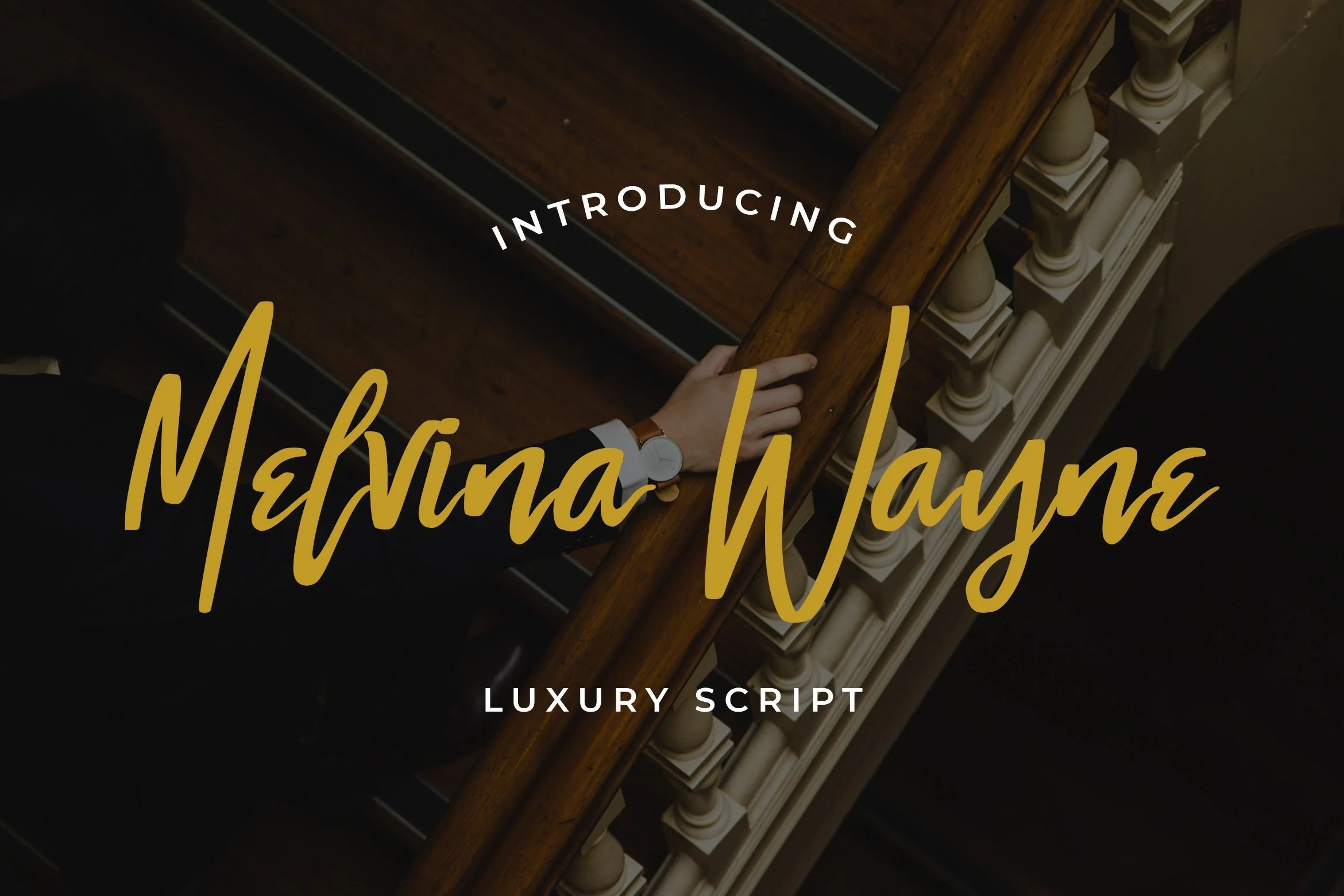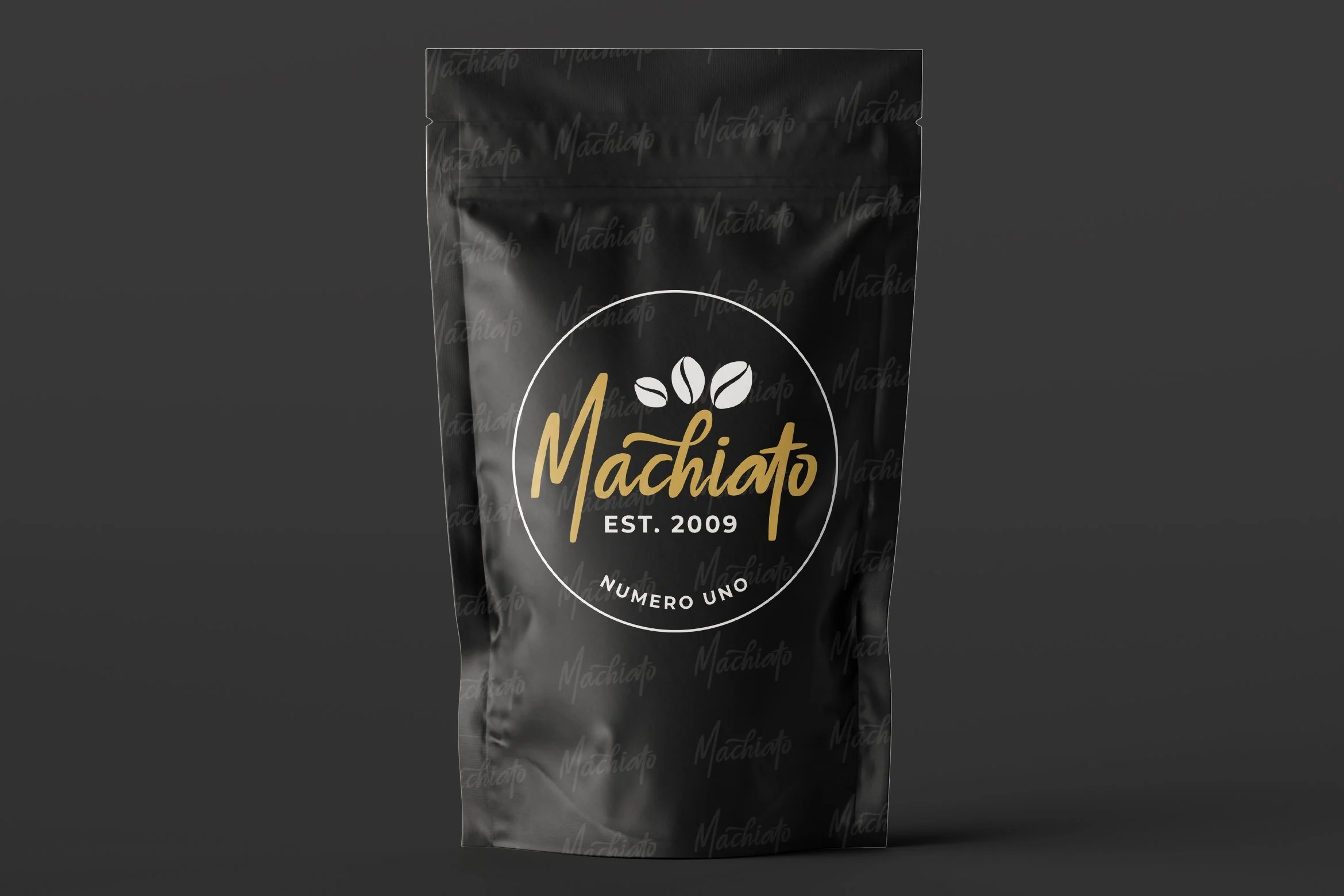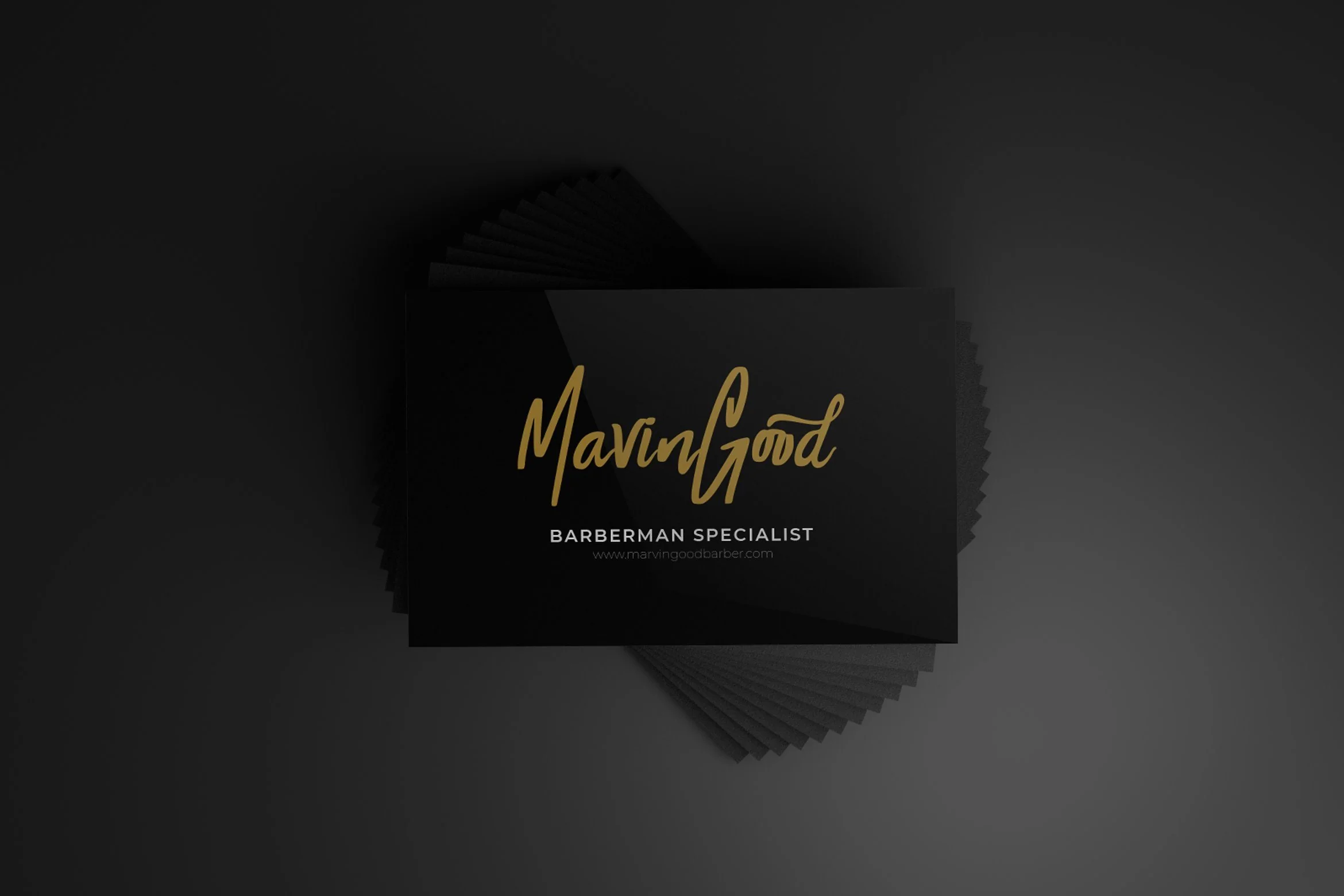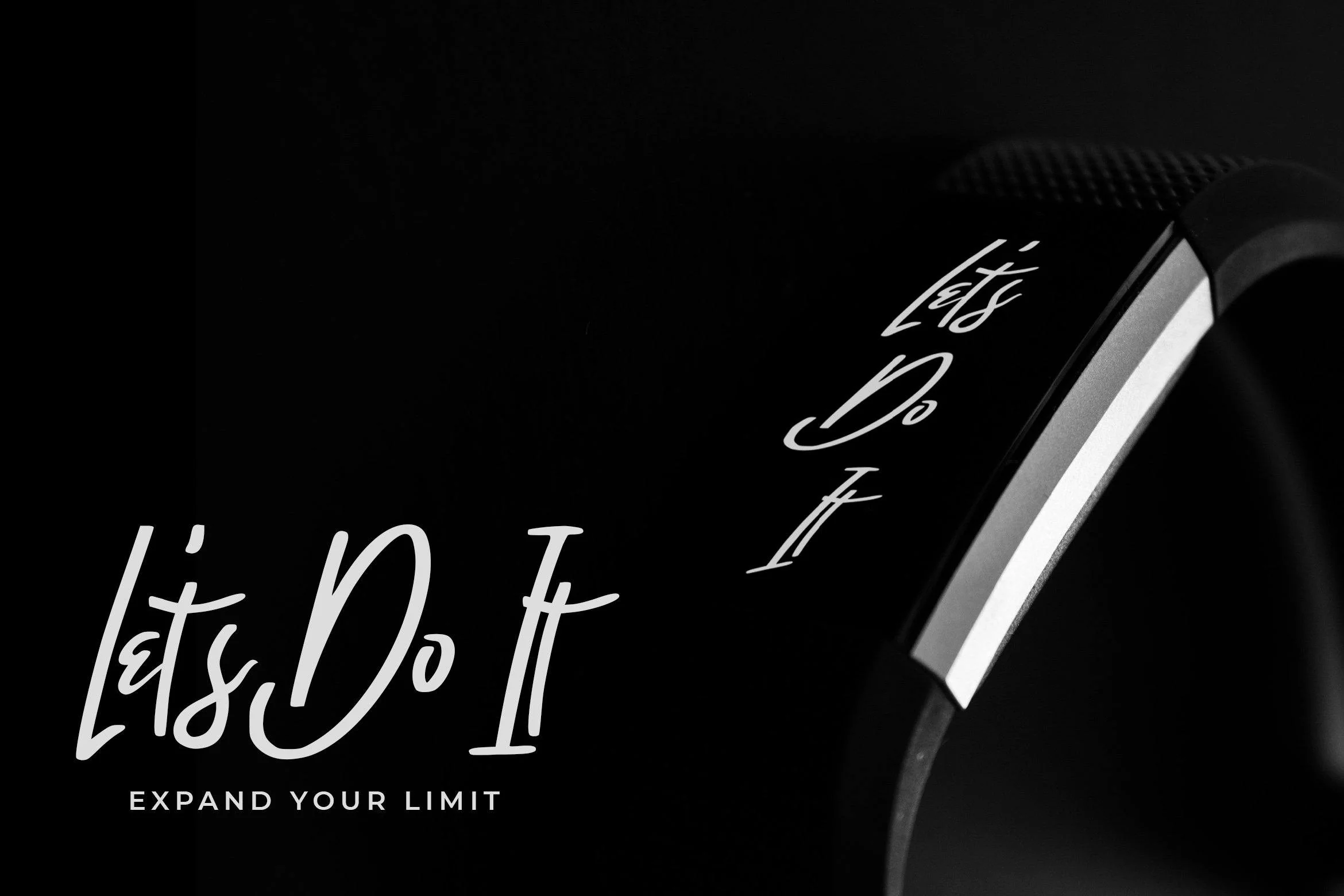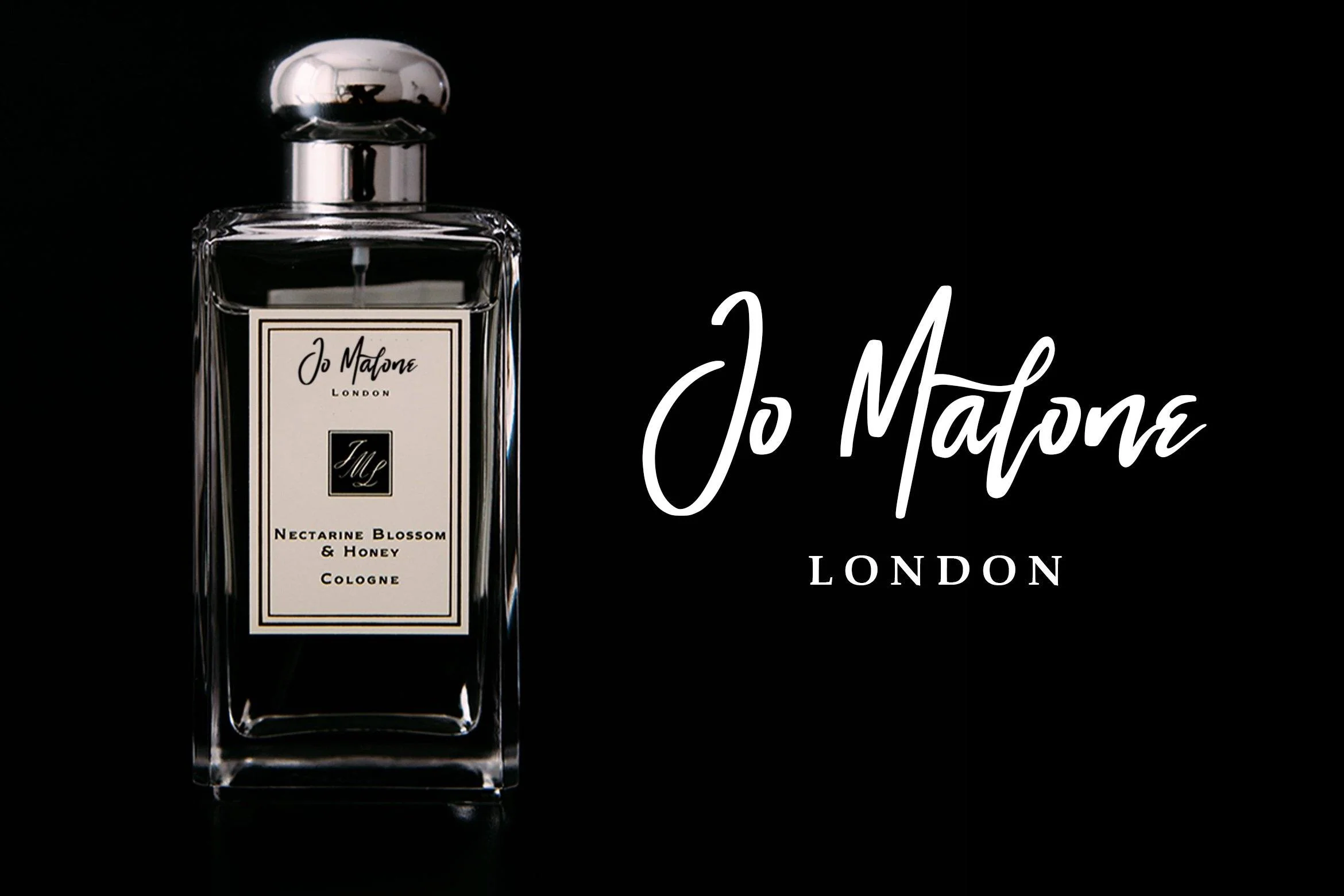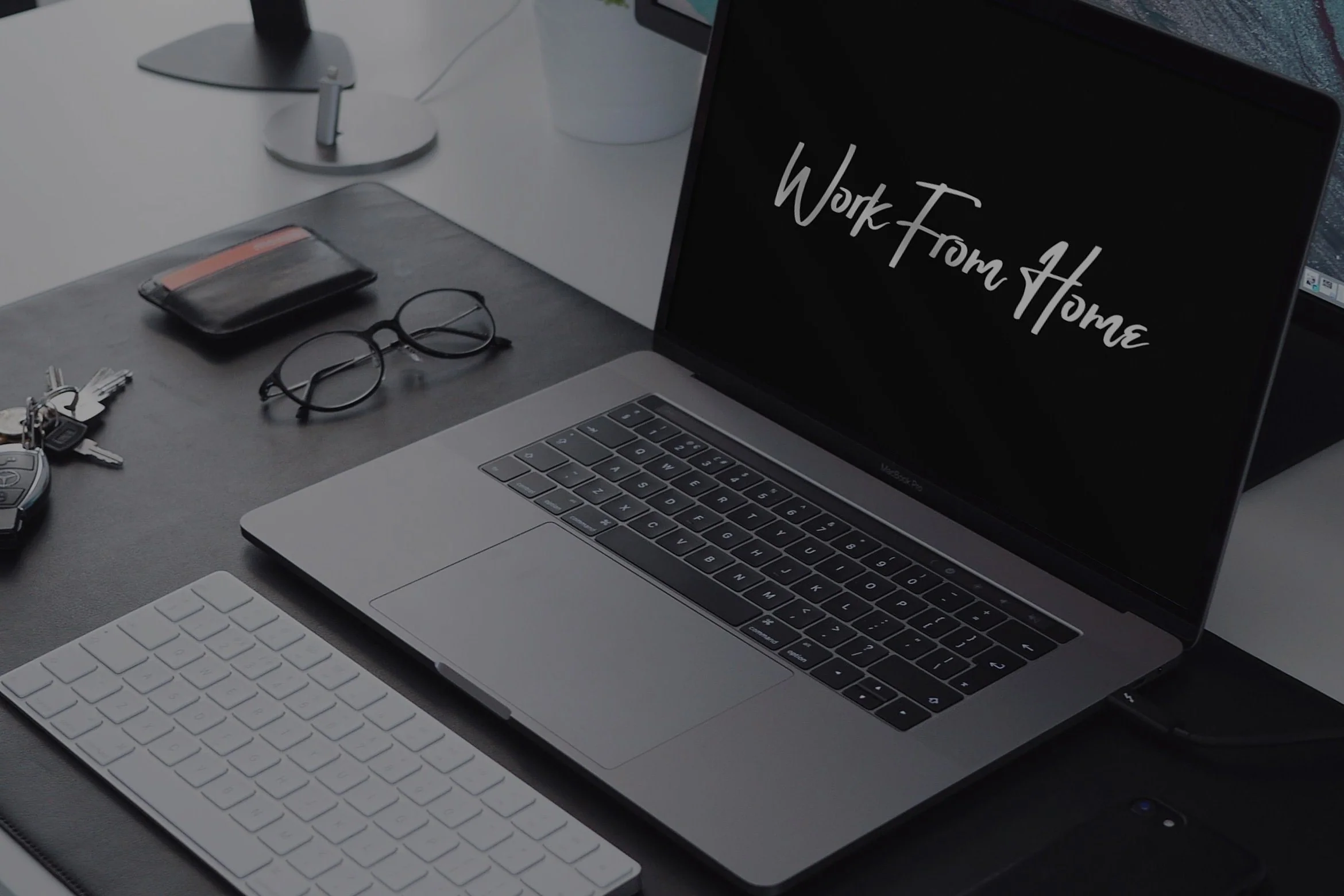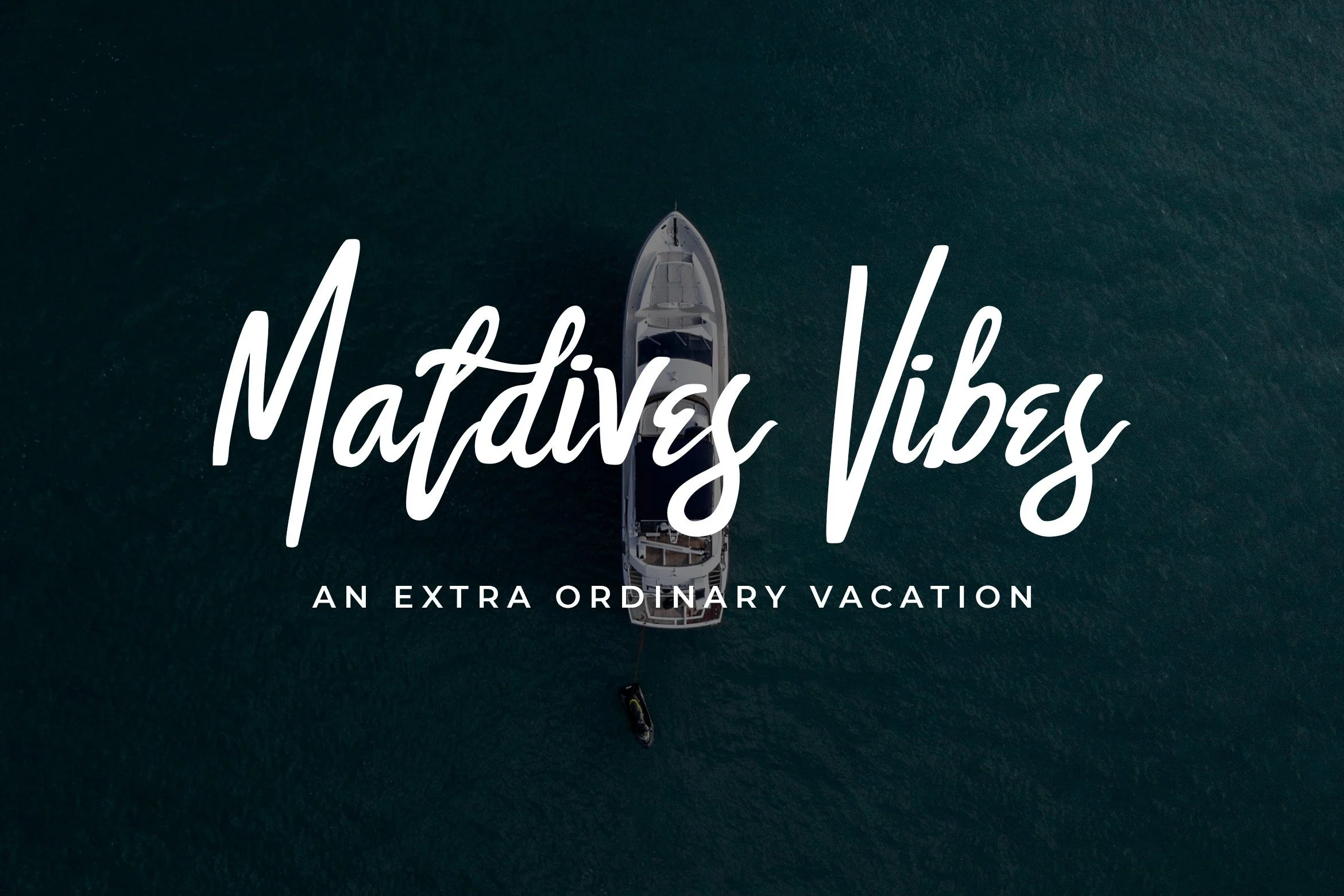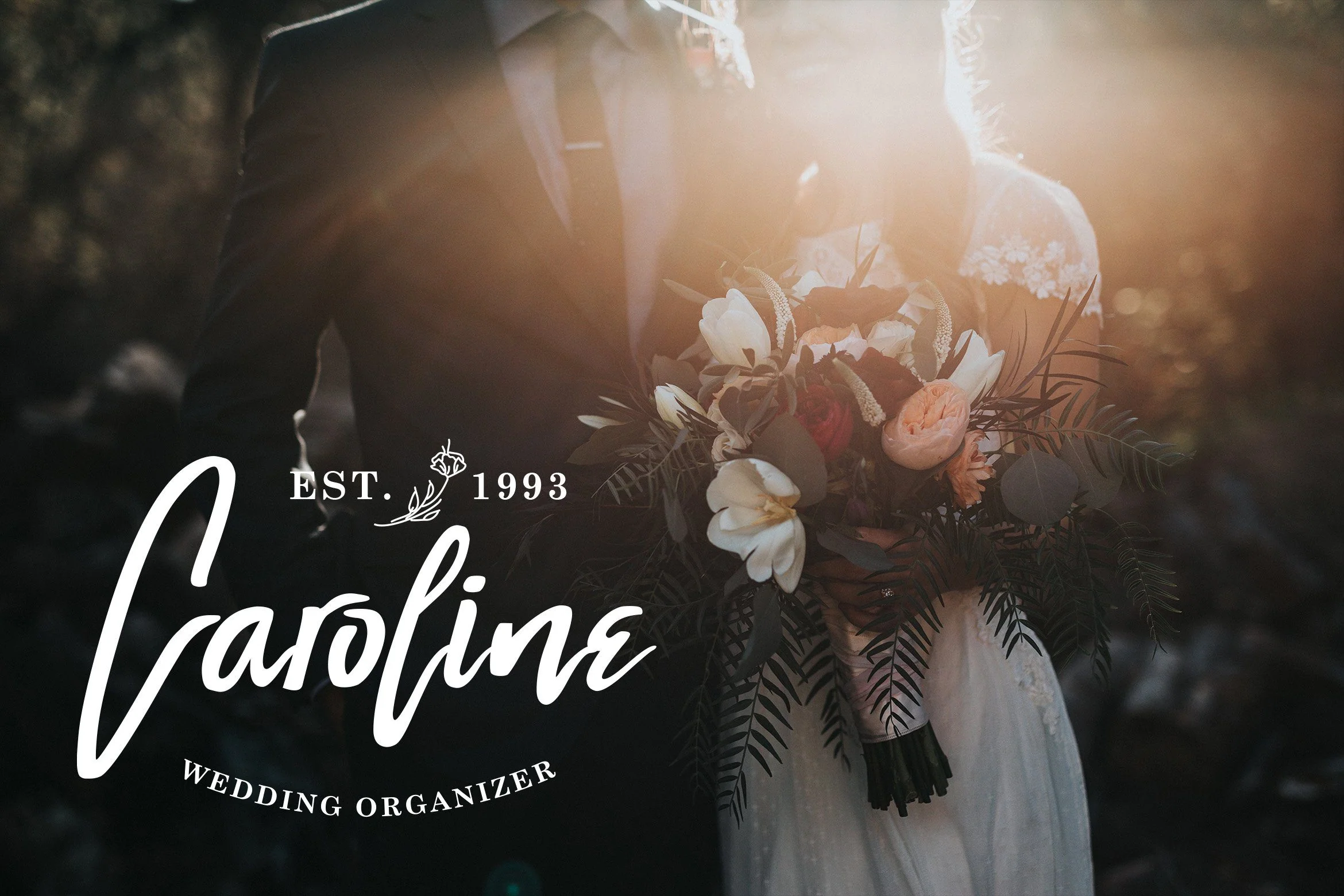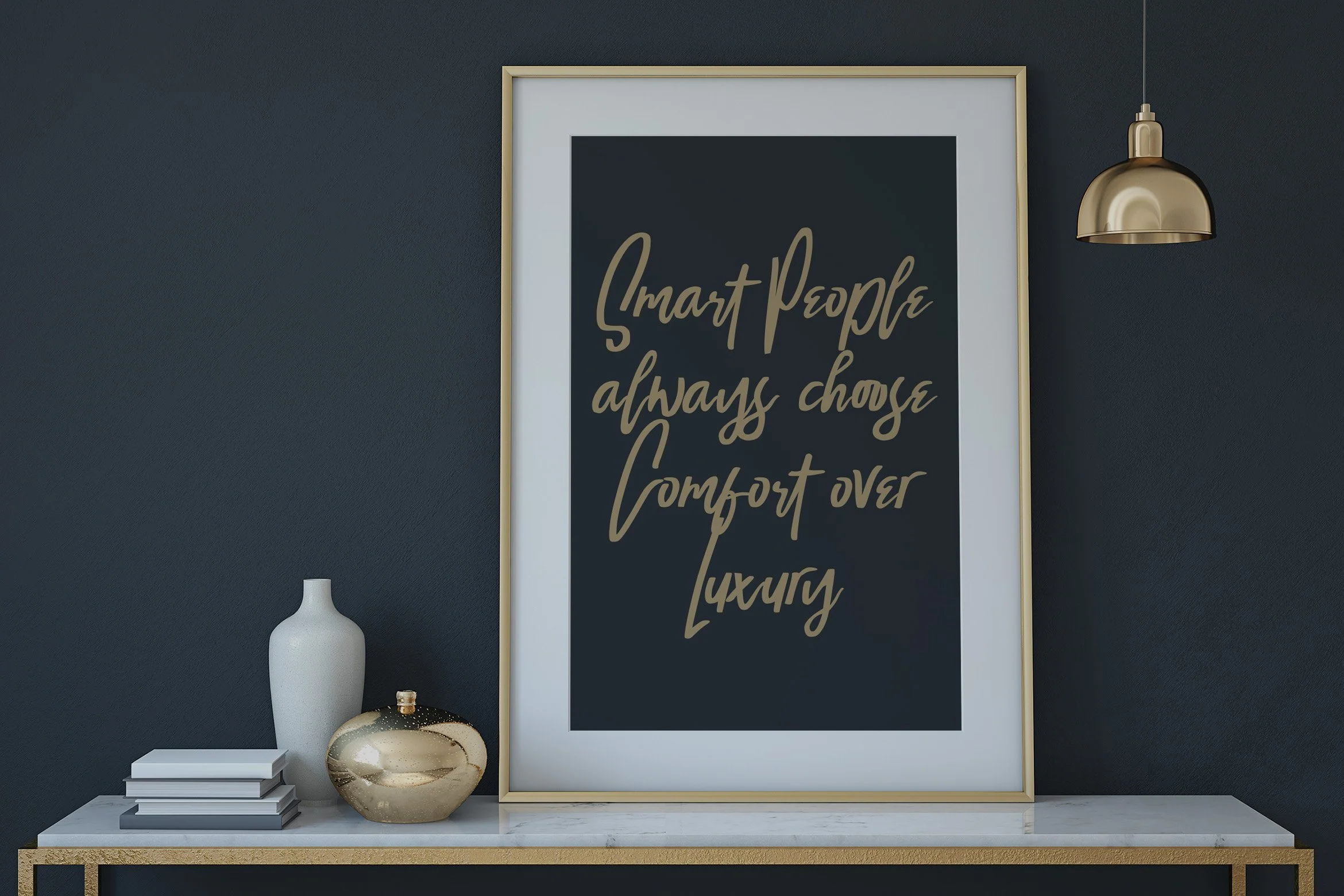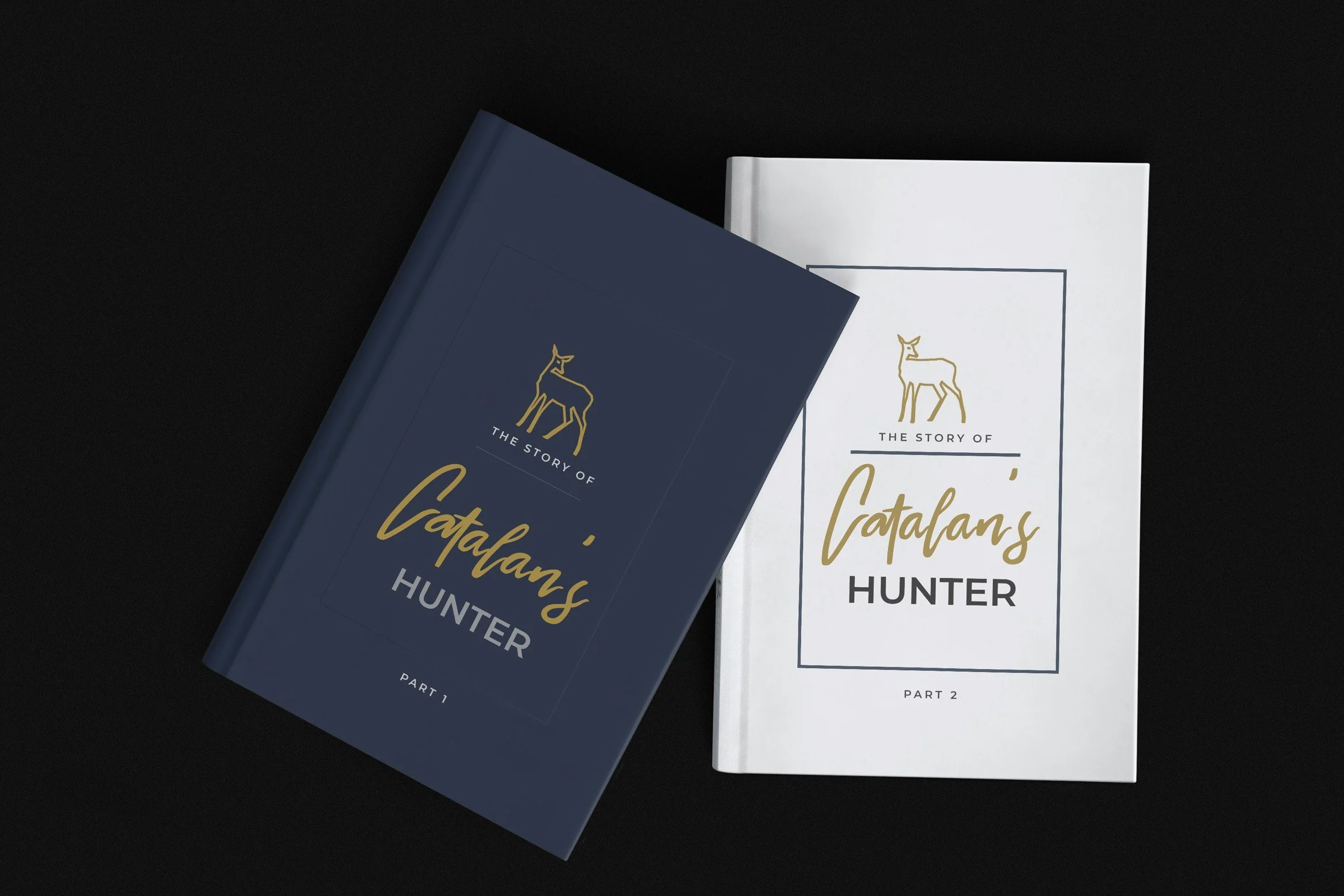
Melvina Wayne - Luxury Script Font
Introducing Melvina Wayne - Luxury Script Font
Melvina Wayne is a Luxury Signature Script Font with Handwritten Style. The Melvina Wayne font was created with authentic handwritting brush pen. This font is perfect for fashion brand, wedding invitation, business card, logo brand, signature, and then calligraphy.
This Font Template contains Classy, Elegant, Creative, Cool and has a Unique Concept.
Introducing Melvina Wayne - Luxury Script Font
Melvina Wayne is a Luxury Signature Script Font with Handwritten Style. The Melvina Wayne font was created with authentic handwritting brush pen. This font is perfect for fashion brand, wedding invitation, business card, logo brand, signature, and then calligraphy.
This Font Template contains Classy, Elegant, Creative, Cool and has a Unique Concept.